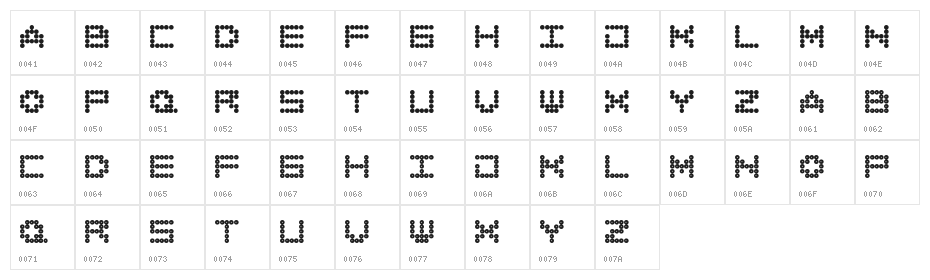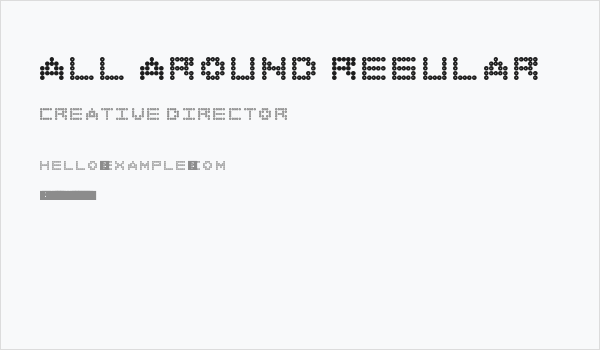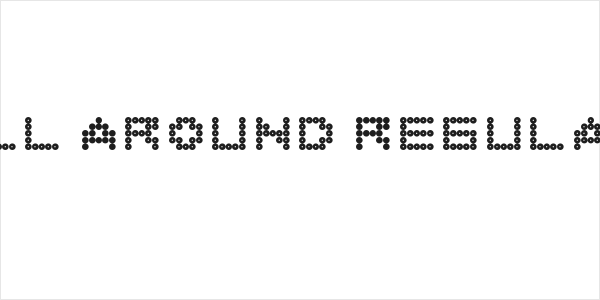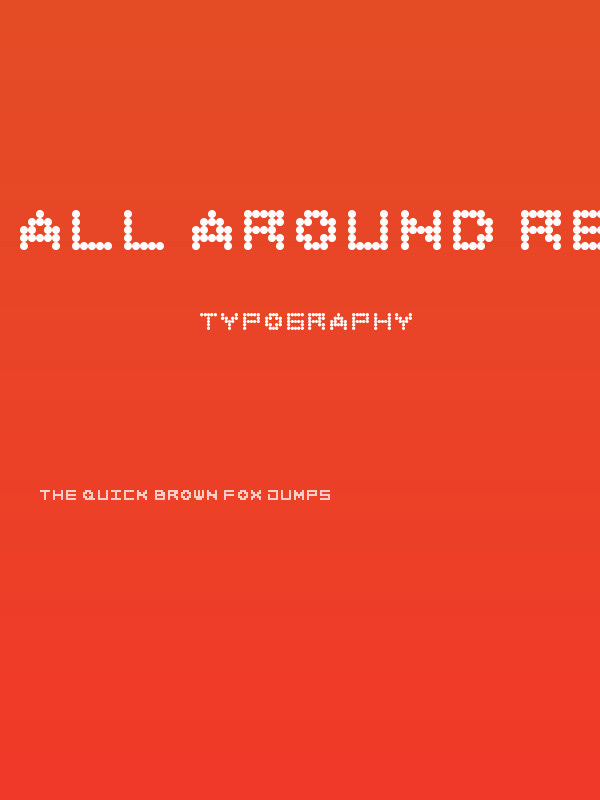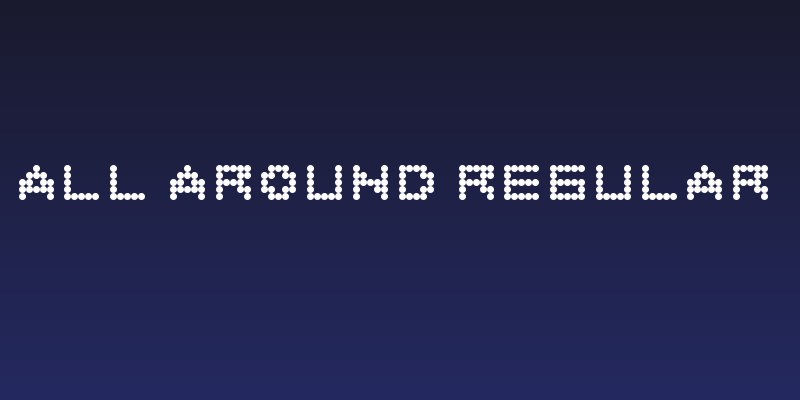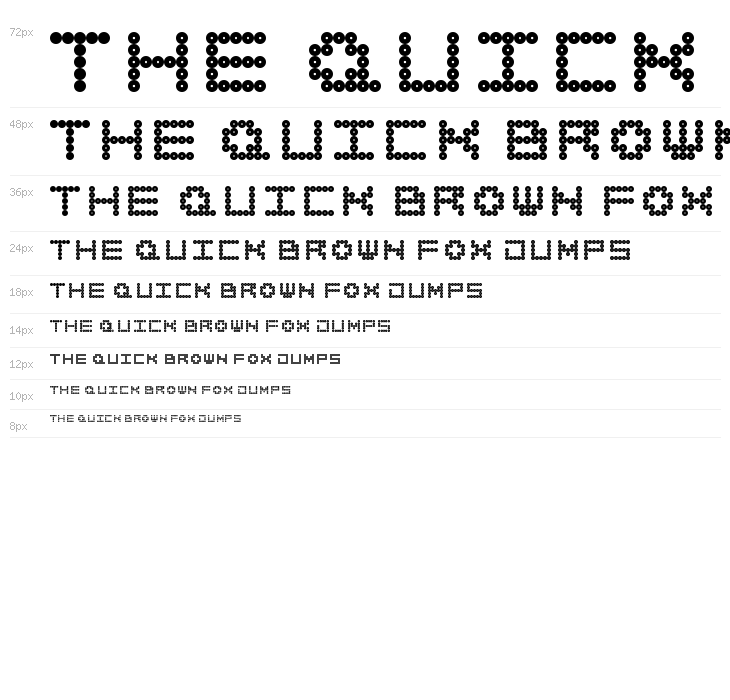
All Around Regular Font
All Around Regular Description
This font features a unique design composed of small circular dots forming each character, giving it a digital and modern appearance. The characters are evenly spaced and maintain a consistent size, creating a uniform look across both uppercase and lowercase letters. The use of dots adds a playful and creative touch, making it stand out from traditional fonts. Its geometric structure is both eye-catching and legible, suitable for various design projects that require a distinctive and contemporary style.
| Proposed Projects | Ideal for digital displays, tech-themed designs, posters, and creative branding projects. |